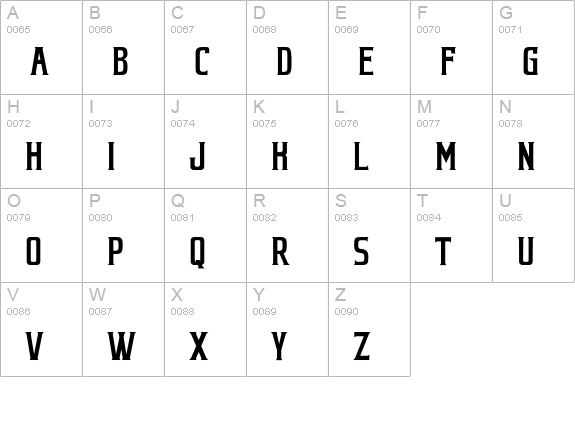
BLACKEND Font Details
Introducing BLACKEND font - a sleek and modern typeface that exudes sophistication and style. With its bold and edgy design, BLACKEND is perfect for making a statement in your projects. This versatile font is suitable for various design purposes, from branding to editorial designs, posters, and more. Its unique aesthetic will surely catch the eye and leave a lasting impression.